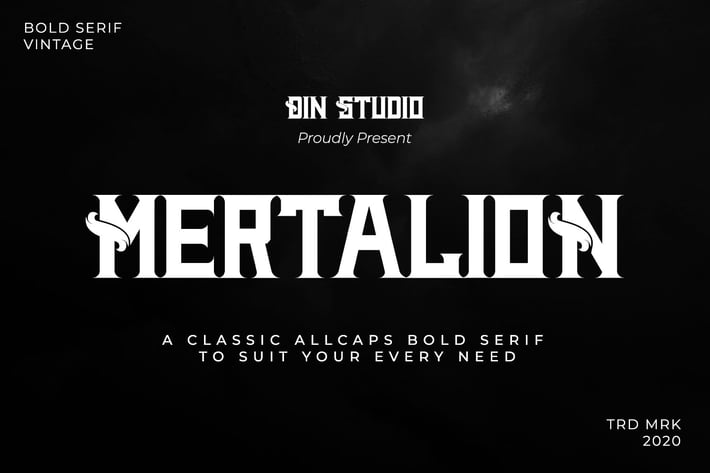
MERTALION - VINTAGE SERIF FONT
Din-Studio
Mertalion is a Vintage Serif Font. Create inspiring from the vintage logotype. the fonts are suitable for any vintage project like branding, vintage logotype, quote, and t-shirt print.